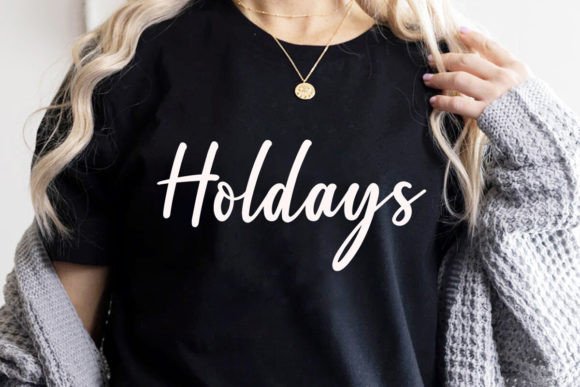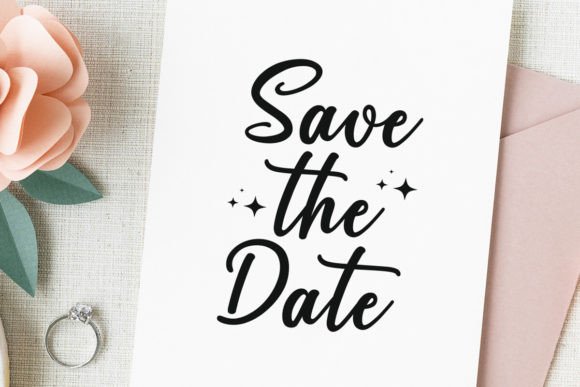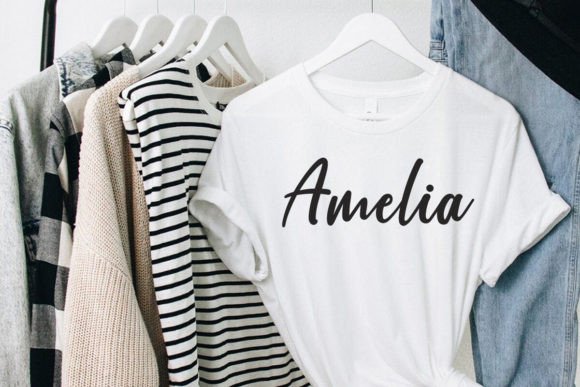
Miles Henry Font: Flowing Script for Modern Branding & Cricut Crafts
About the Miles Henry Font
Crafted with precision, the Miles Henry Font is ready to bring your ideas to life. Miles Henry is a modern, stylish, and flowing handwritten script font with tails. It has beautiful and well-balanced characters and as a result, it matches a wide pool of designs. It is the best choice for creating eye-catching logos, branding, and quotes. Add it to your most creative ideas, and notice how it makes them come alive!
Miles Henry’s elegant yet casual style makes it ideal for logos, branding projects needing a touch of personality, wedding stationery, and short-form text on packaging or posters. Its flowing nature, however, makes it less suitable for body text or UI elements where readability is paramount; long paragraphs set in Miles Henry would be difficult to decipher.
Pairing Miles Henry effectively requires considering its inherent fluidity. A clean sans-serif like Open Sans or Lato provides a strong contrast and improves readability when used for supporting text. For a more sophisticated feel, a classic serif such as Garamond or Playfair Display can complement its refined curves. Avoid pairing it with other script fonts to prevent visual clutter.
The overall personality of Miles Henry is sophisticated yet approachable; modern but with a hint of timeless charm. It best suits brands aiming for a balance of elegance and approachability, suggesting quality and personality without being overly formal or overly whimsical.
Miles Henry Font Usage Examples
Miles Henry Font Example